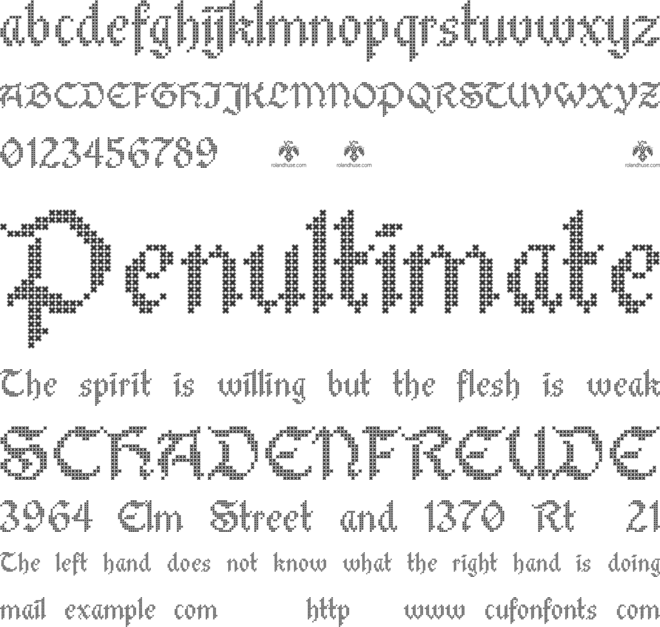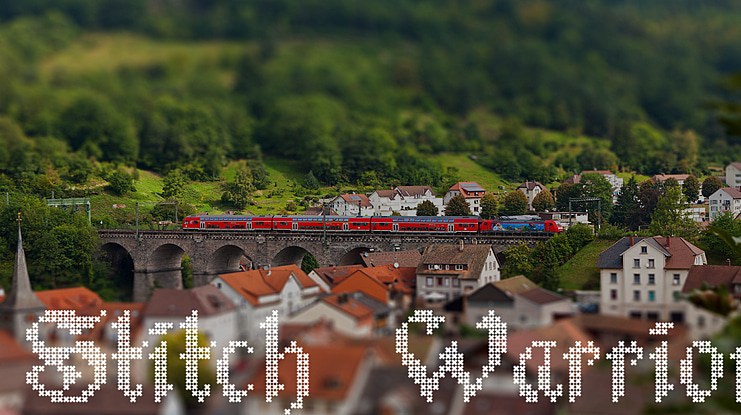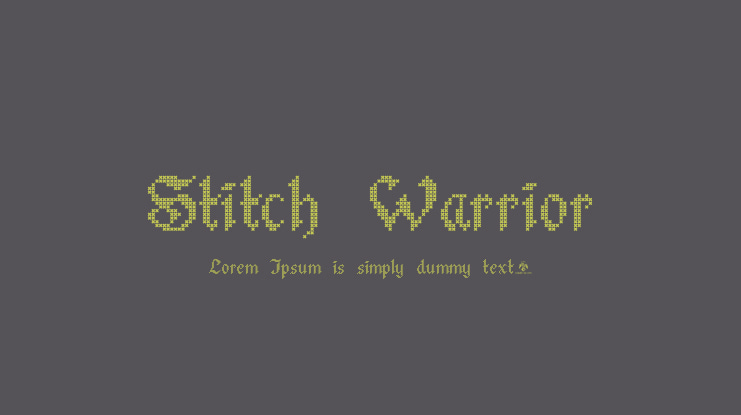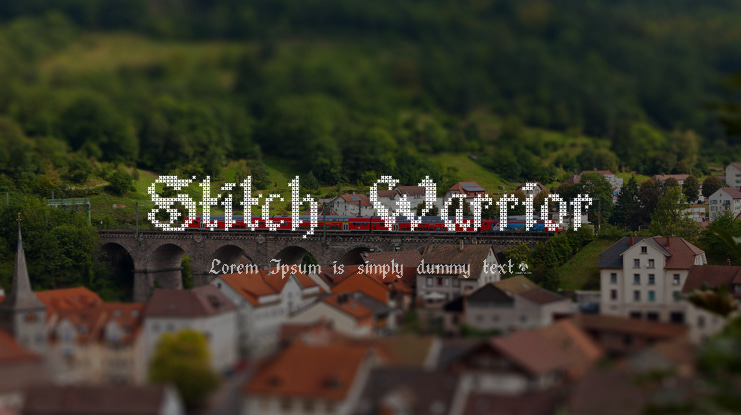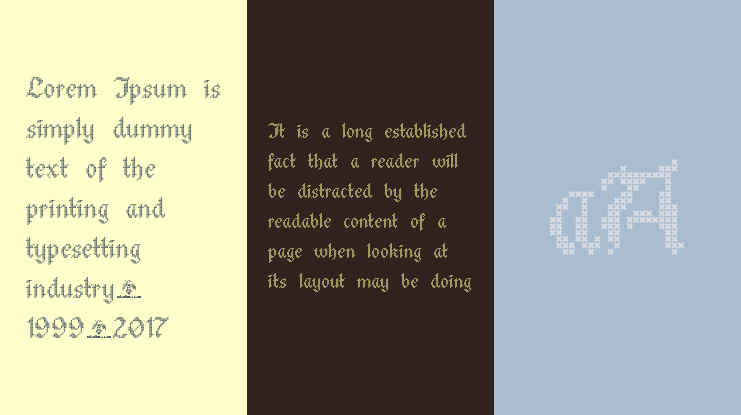
Stitch Warrior Font
STITCH WARRIOR demo is a trial version of a gothic style stitch font. It 's made of cross stitches ("x") and even kerning is based on 1, 2 or 3 stitches I was trying to be as accurate and close to reality as possible.
Stitch Warrior font preview